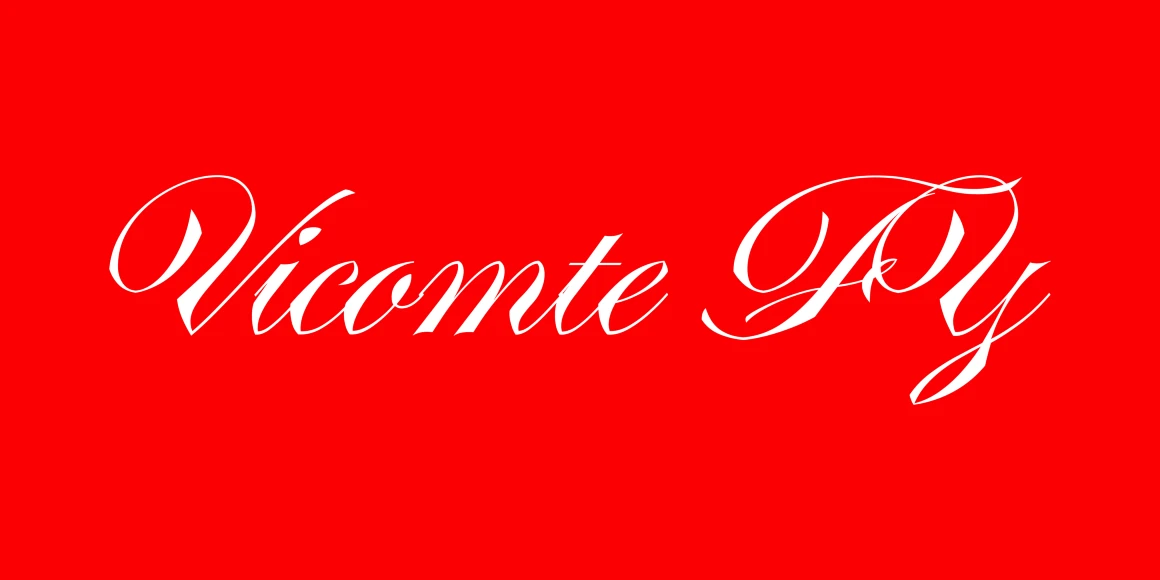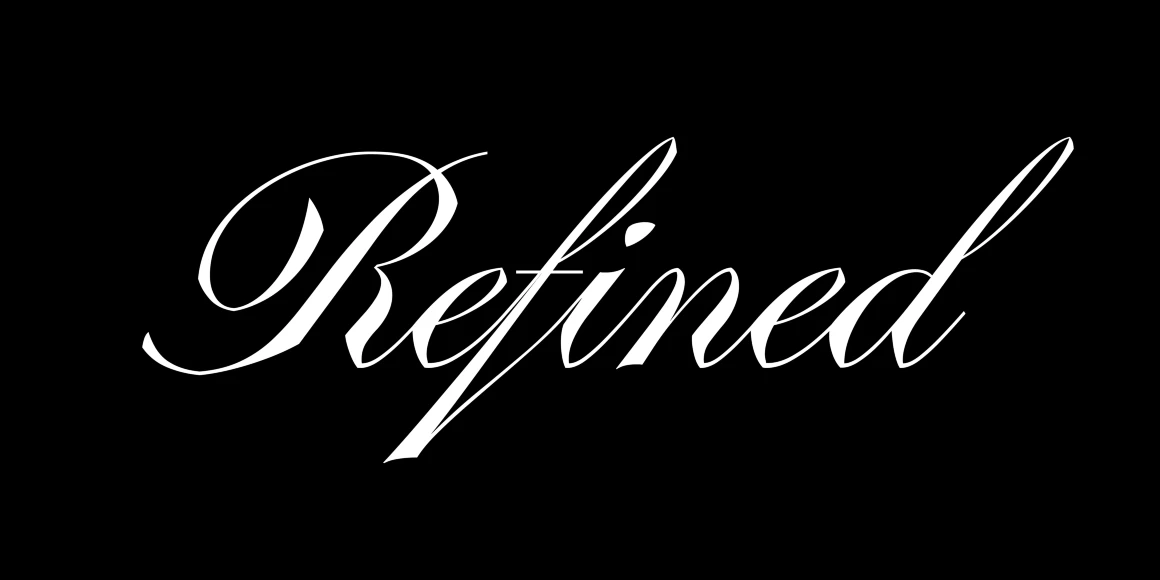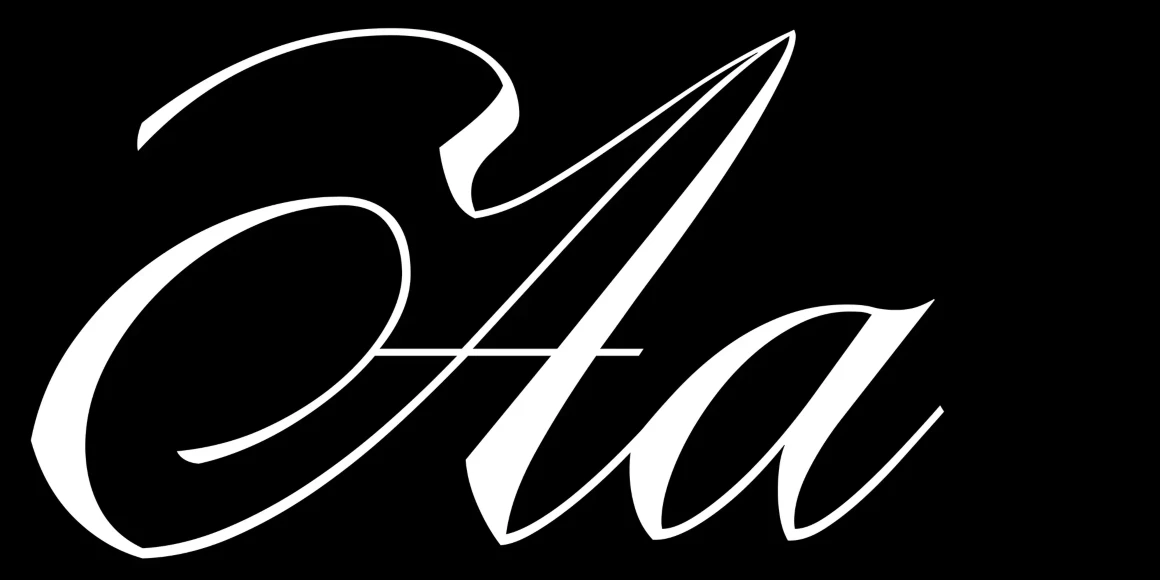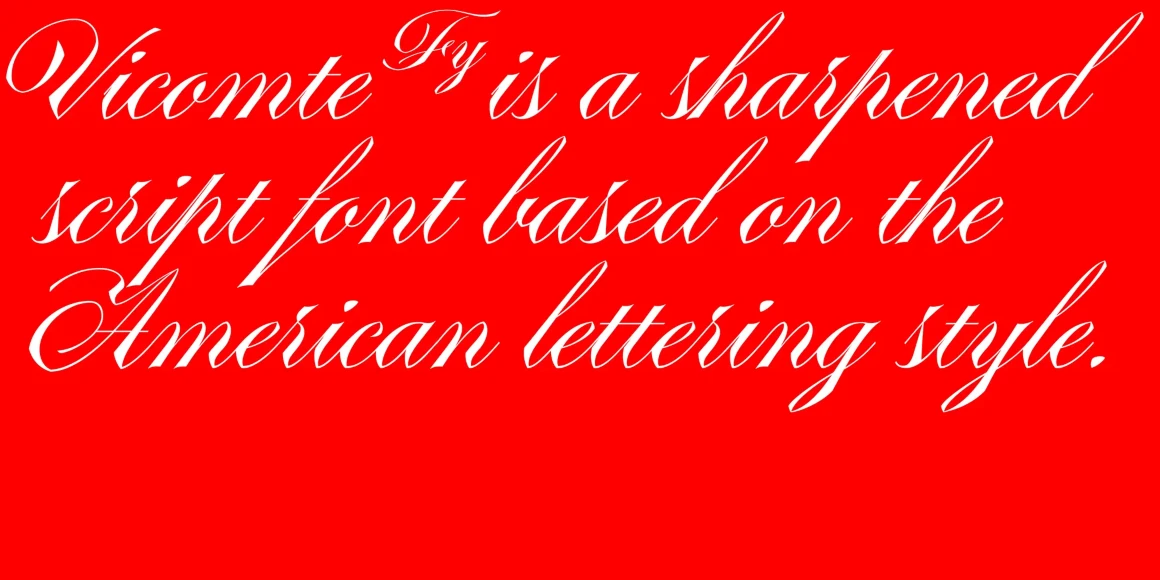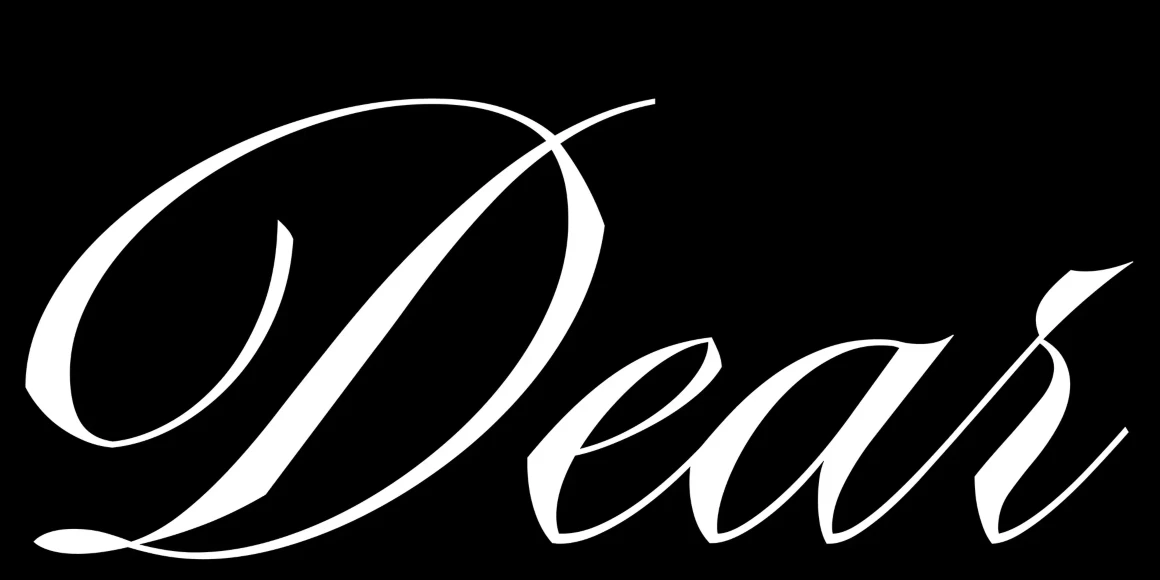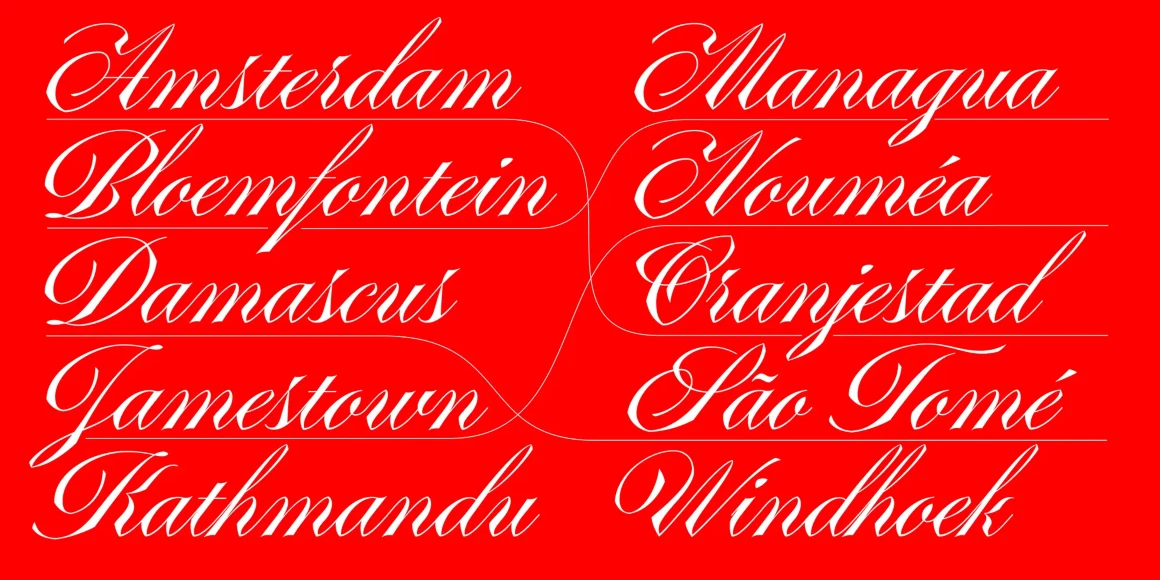
Vicomte
Vicomte FY is a script typeface inspired by the American lettering style known as Engrosser’s script or, more commonly, Copperplate. Where letters were built stroke by stroke with a pointed pen to echo the burin of the engraver. Moving away from handwriting, it emphasizes inscribed qualities that shape its distinctive look. Alternating curves and angles, narrow proportions, and tight spacing give it a dark, striking texture that conveys strength while preserving the refinement of formal scripts.